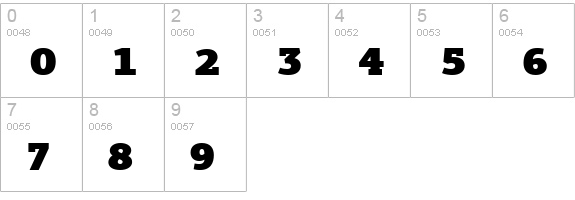
PFAgoraSlabPro-UltraBlack is a striking and bold typeface that commands attention with its powerful presence. This font exudes confidence and strength, making it perfect for headlines, logos, and other design projects that require a touch of boldness. The ultra-black weight adds a sense of drama and impact to any text, ensuring that your message will not go unnoticed. What's even better is that PFAgoraSlabPro-UltraBlack is available for free download at FontsMarket.com. This means that you can easily access this impressive font without any cost, making it a valuable addition to your design toolkit. With its sleek and modern design, PFAgoraSlabPro-UltraBlack is sure to make a statement in any project, whether it's for print or digital use. Don't miss out on this fantastic opportunity to enhance your designs with this exceptional font. Download it now and let your creativity shine!